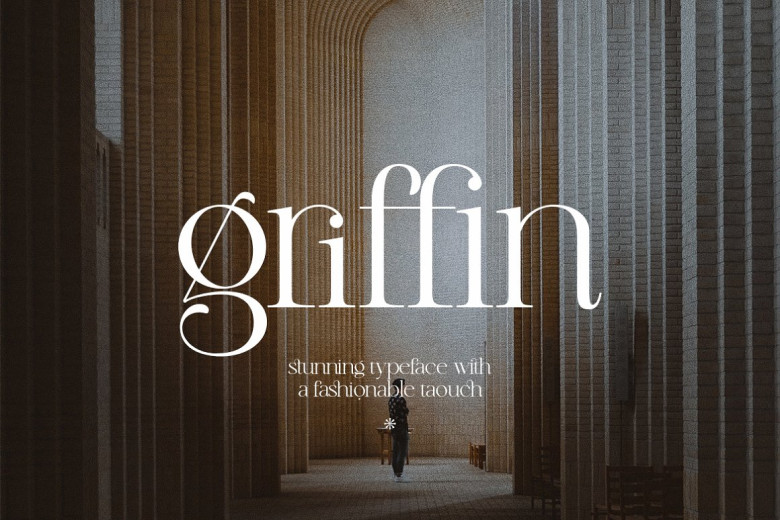
Griffin Font
Griffin is a modern serif font designed with an attractive contrast, specifically created to produce elegant lifestyle designs such as logos and titles.
Griffin Serif Font